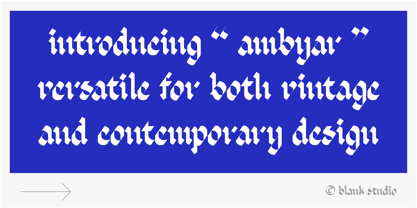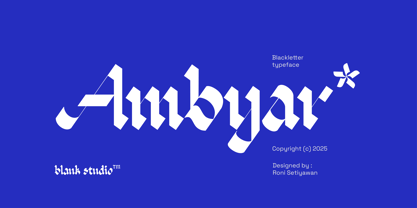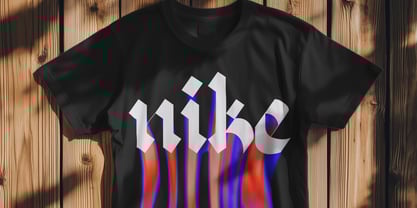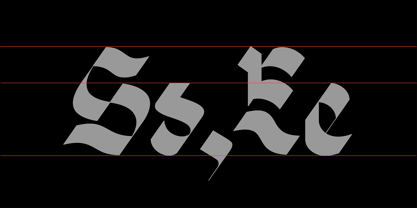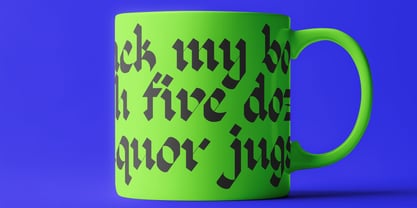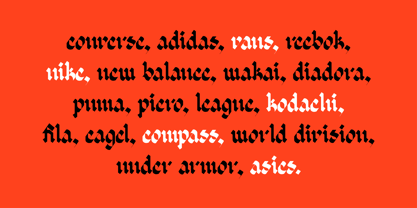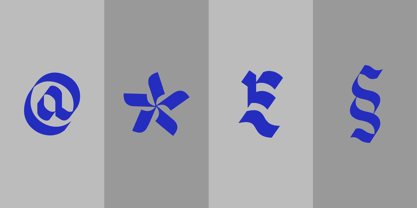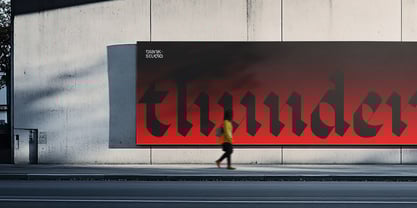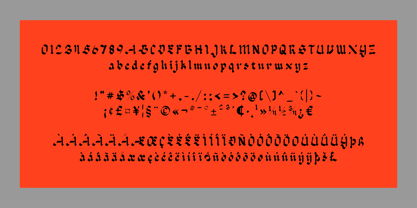
Ambyar Black
by Blank Studio
The Ambyar Black Font Family was designed by Roni Setiyawan and published by Blank Studio. Ambyar Black contains 1 styles. More about this family
Ambyar Black is a bold and expressive blackletter typeface designed to evoke a sense of elegance, power, and nostalgia. Rooted in the traditional Gothic script, it reimagines the classic blackletter style with a modern twist, making it versatile for both vintage and contemporary design projects.
This font is perfect for creating impactful logos, striking headlines, or artistic posters. Its sharp angles and fluid curves give it a dynamic personality, while its intricate details reflect a deep appreciation for traditional craftsmanship. Whether used for branding, editorial design, or personal projects, Ambyar Black commands attention and adds a dramatic flair to any composition.
Designers: Roni Setiyawan
Foundry: Blank Studio